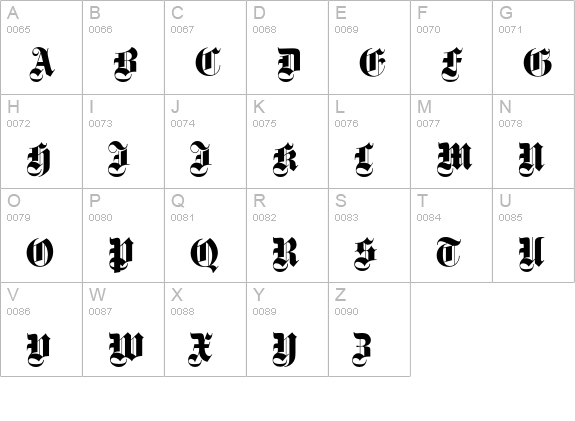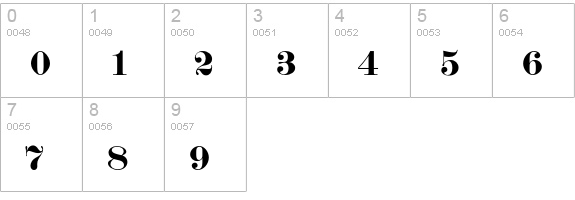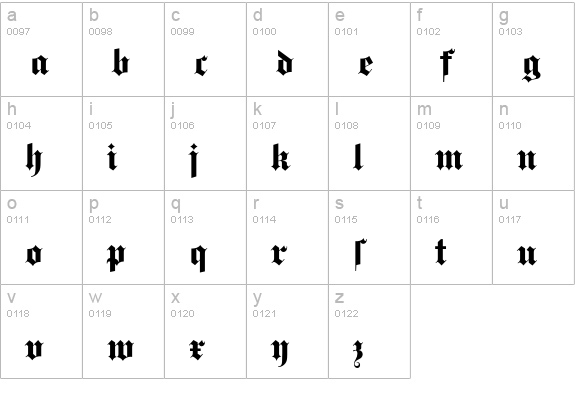
GotischEF-Bold Font Details
GotischEF-Bold is a strong, high-contrast variant in the GotischEF typeface family \xE2\x80\x94 well suited to headlines, attention-grabbing titles, and strong calls-to-action.
GotischEF-Bold is a modern and striking font that combines traditional Gothic influences with a bold and contemporary style. Its sharp edges and strong lines make it perfect for creating eye-catching headlines and titles. This font exudes a sense of sophistication and elegance, making it ideal for projects that require a touch of drama and flair. What sets GotischEF-Bold apart is not only its unique design, but also the fact that it is available for free download at FontsMarket.com. This means that designers and creatives can easily access this stunning font without any cost, allowing them to enhance their projects with a premium typeface without breaking the bank. Whether you're working on branding, advertising, or editorial design, GotischEF-Bold is sure to make a bold statement and leave a lasting impression. Download it for free today and elevate your designs with this exceptional font.